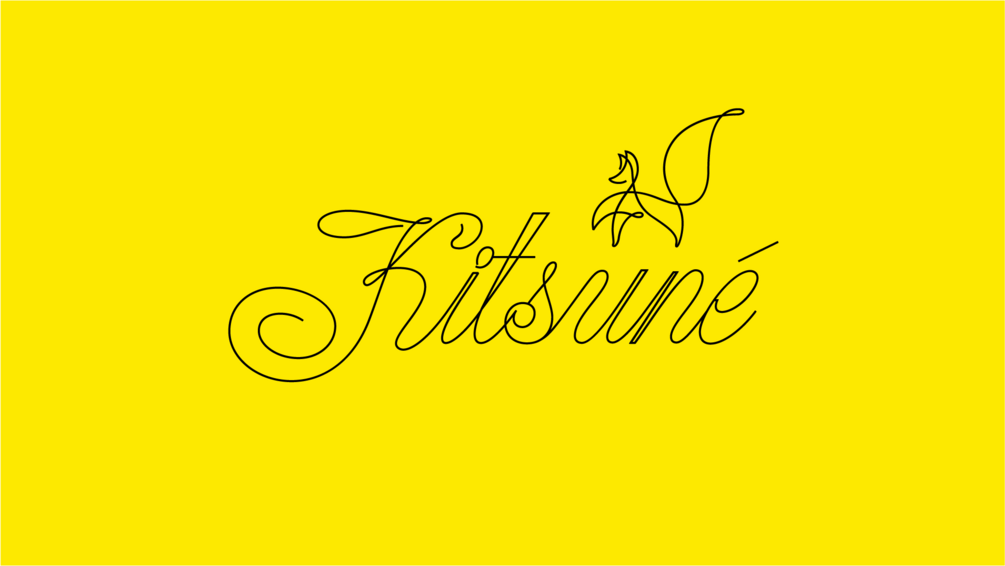
Kitsune
Kitsuné is the Japanese word for fox and also a modern script typeface packed with OpenType alternates and graphic glyphs. The subtle and well considered geometric shoulders and beautifully flowing capital forms are bound to impress and be well suited for fashion magazines, wedding invitations and more.